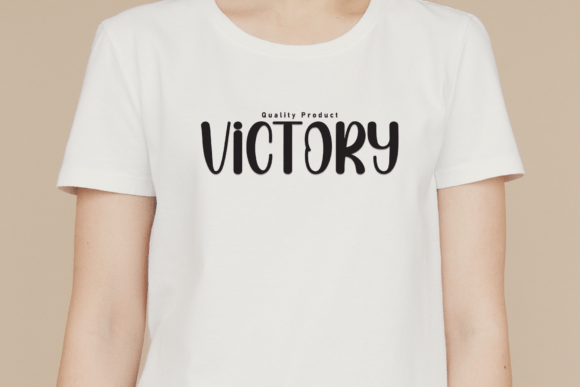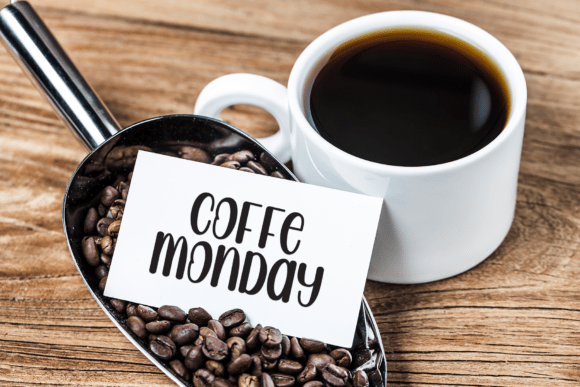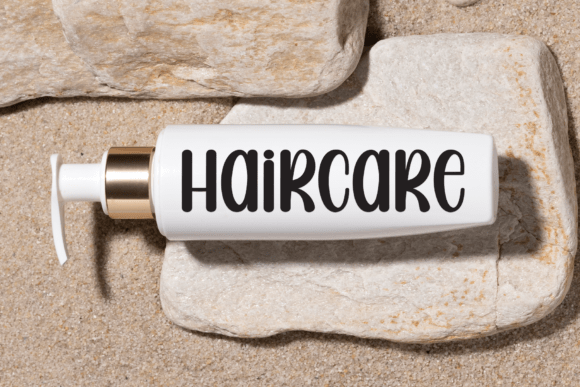
Introduction to Lunch Family Font
Introducing a delightfully charming handwritten display font, this typeface radiates sweetness and friendly attitudes.
Its playful vibe and fun aesthetic make it the perfect choice for injecting a playful touch into your design projects From heartfelt wedding invitations and thoughtful greeting cards, any design calling for a sprinkle of cheer can greatly benefit from this font’s whimsy and uniqueness.